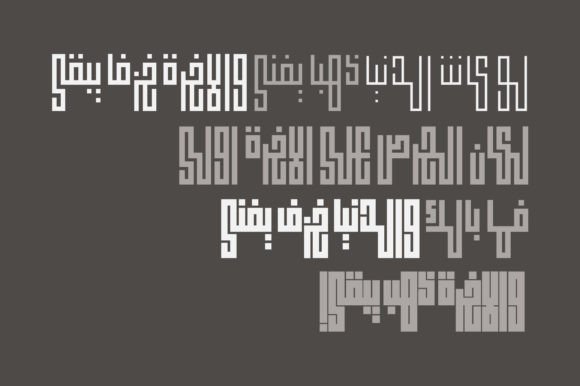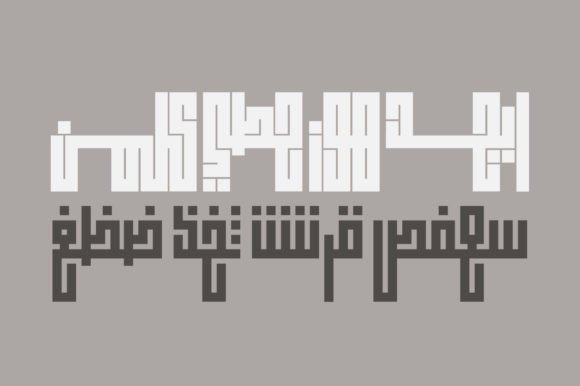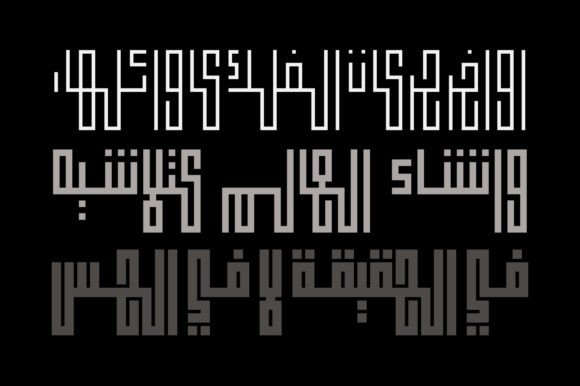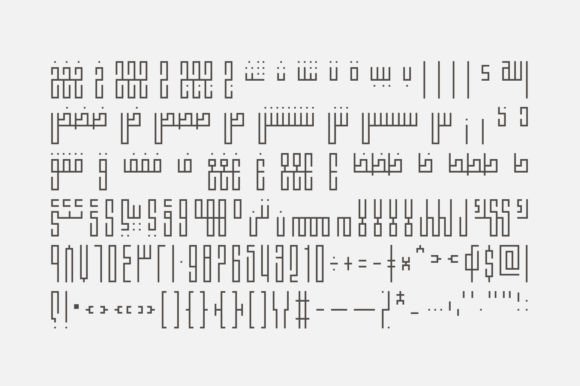
The Fenoon Font: A Stunning Arabic Display Font for Creative Projects
What is Fenoon Font?
Fenoon is an Arabic display font inspired by the ancient Square Kufic script. Its elegant and sophisticated design makes it perfect for visual identities, art events, packaging, and contemporary projects. The font’s unique blend of traditional and modern elements gives it a distinctive look that’s sure to grab attention.
The Good: ✨
- ✅ Unique and elegant design inspired by ancient Square Kufic script
- ✅ Perfect for display purposes, such as titles, headings, and logos
- ✅ Supports OpenType features, glyphs, and stylistic alternates
- ✅ Works well with both English and Arabic text
The Not-So-Good: 🤔
- ⚠️ Limited use for body text due to its display nature
The Story Behind Fenoon: Designer Inspiration
Fenoon was designed with the goal of blending traditional Arabic calligraphy with modern design elements. The font’s creator was inspired by the ancient Square Kufic script and aimed to create a font that would be both elegant and versatile. The result is a stunning Arabic display font that’s perfect for a wide range of creative projects.
| Font Name | Fenoon Font |
| Author | Mostafa El Abasiry |
Q: What is Fenoon font inspired by?
A: Fenoon font is inspired by the ancient Square Kufic script.
Q: Is Fenoon suitable for body text?
A: No, Fenoon is a display font and is best suited for titles, headings, and logos.
Q: Does Fenoon support OpenType features?
A: Yes, Fenoon supports OpenType features, glyphs, and stylistic alternates.